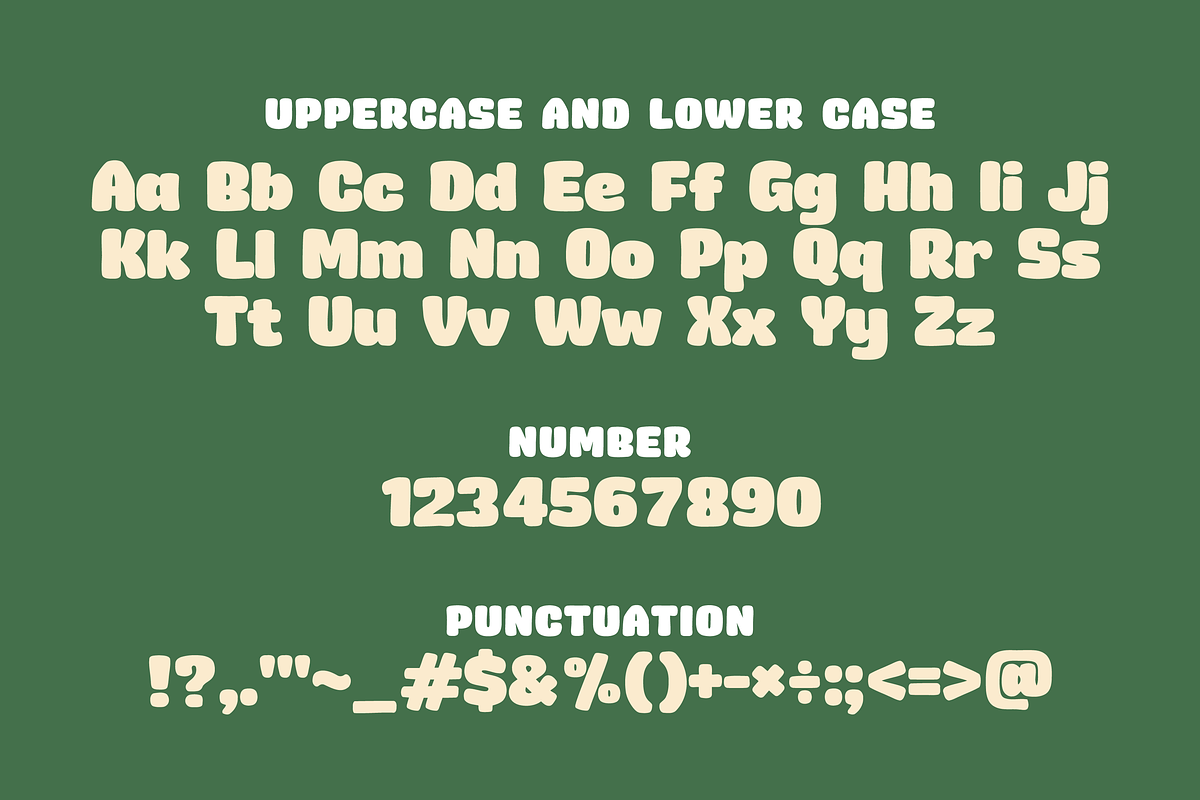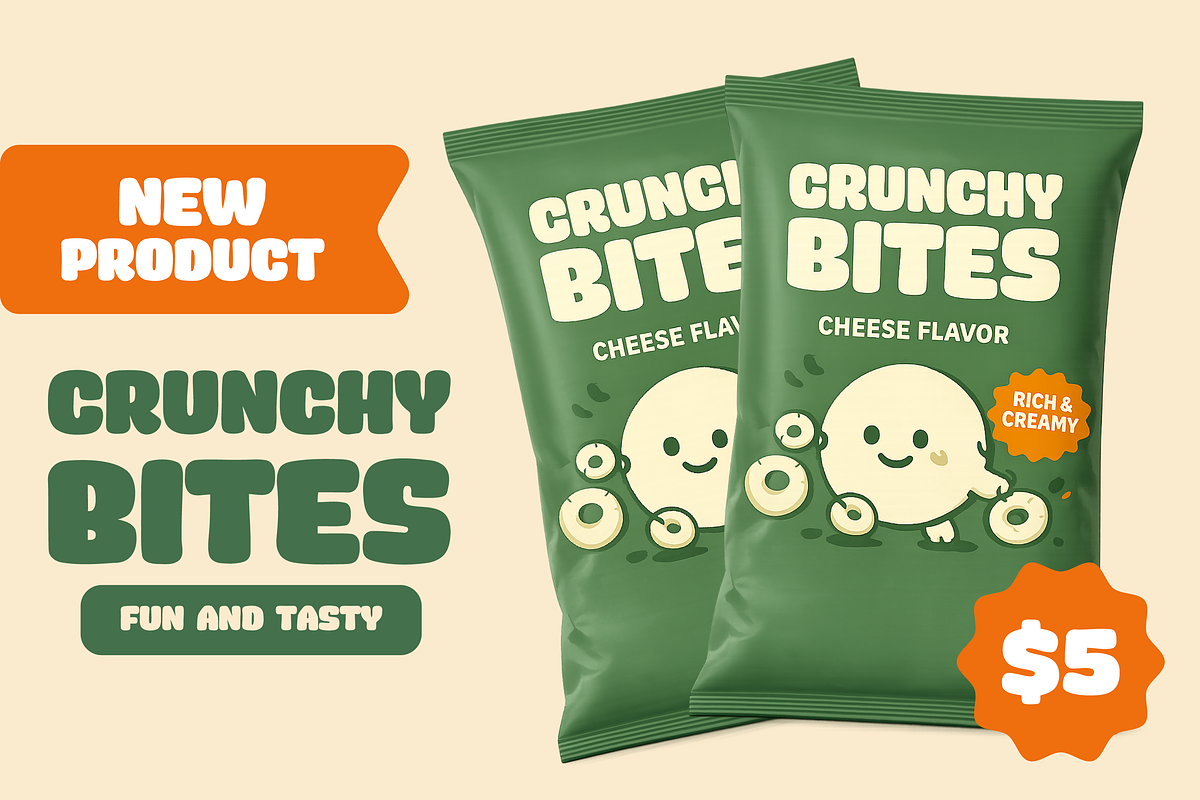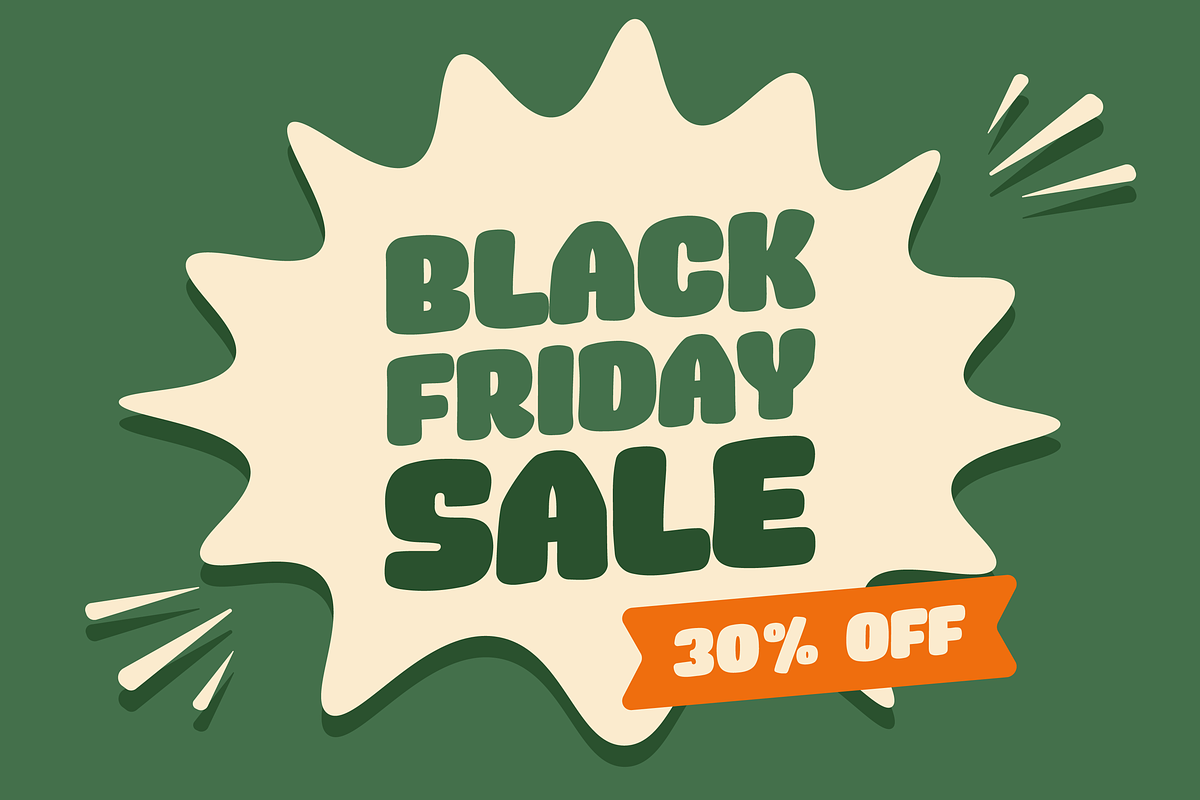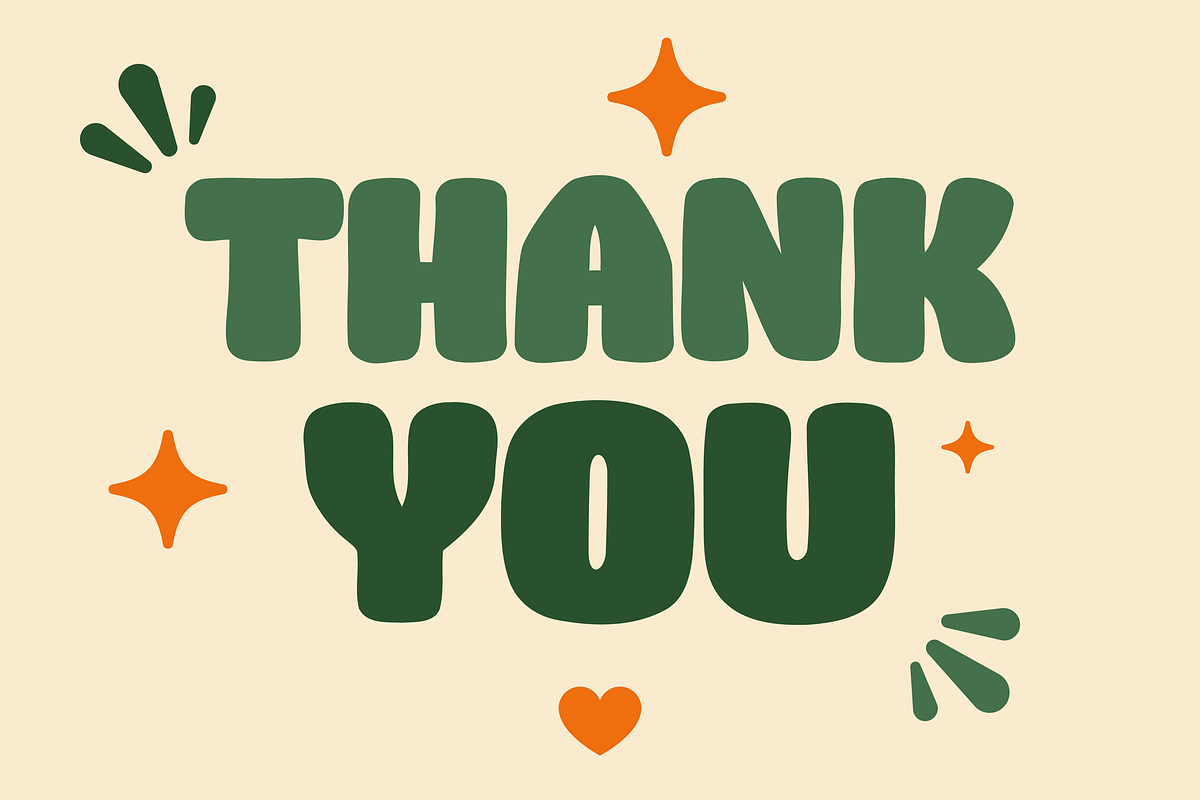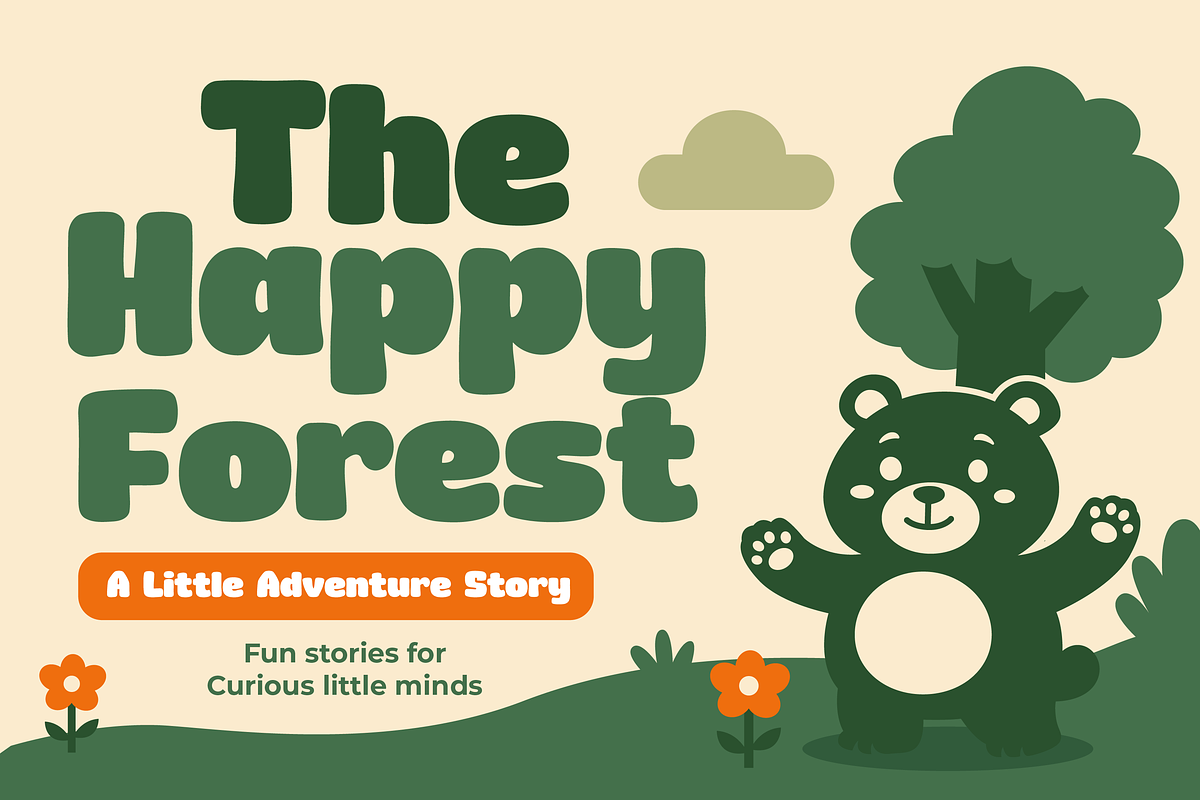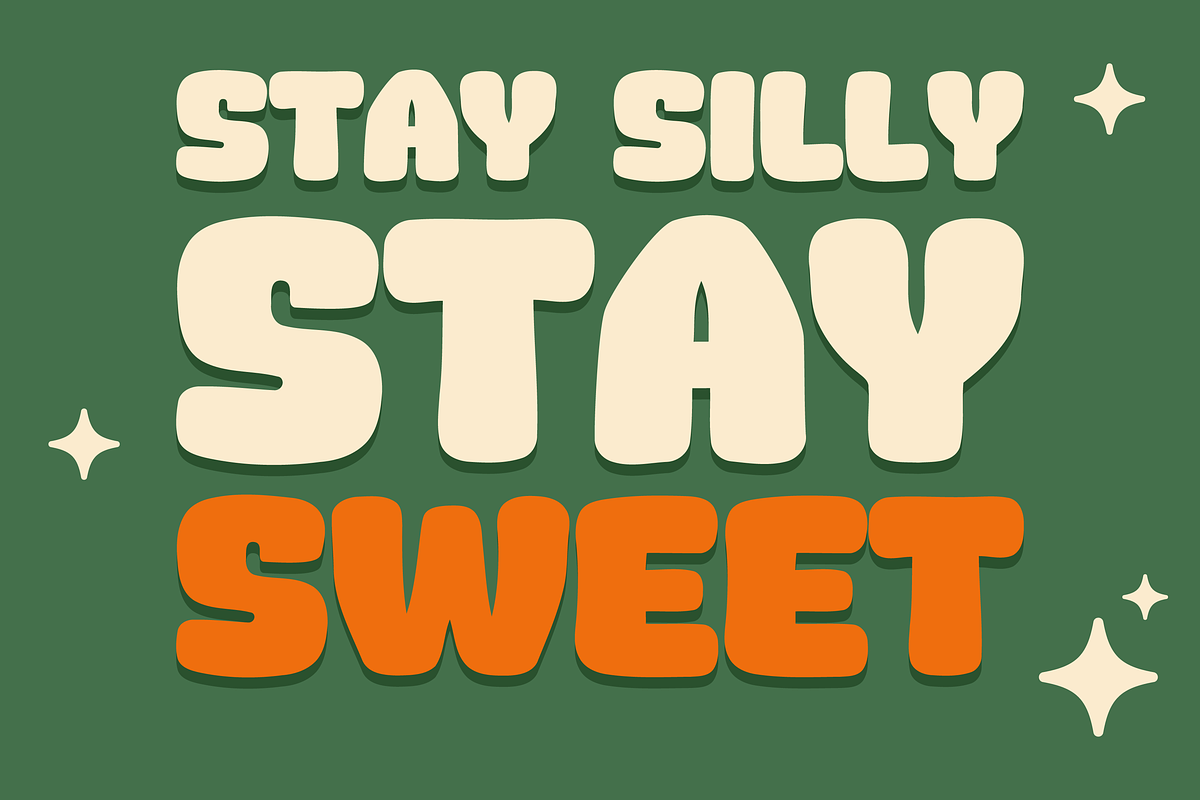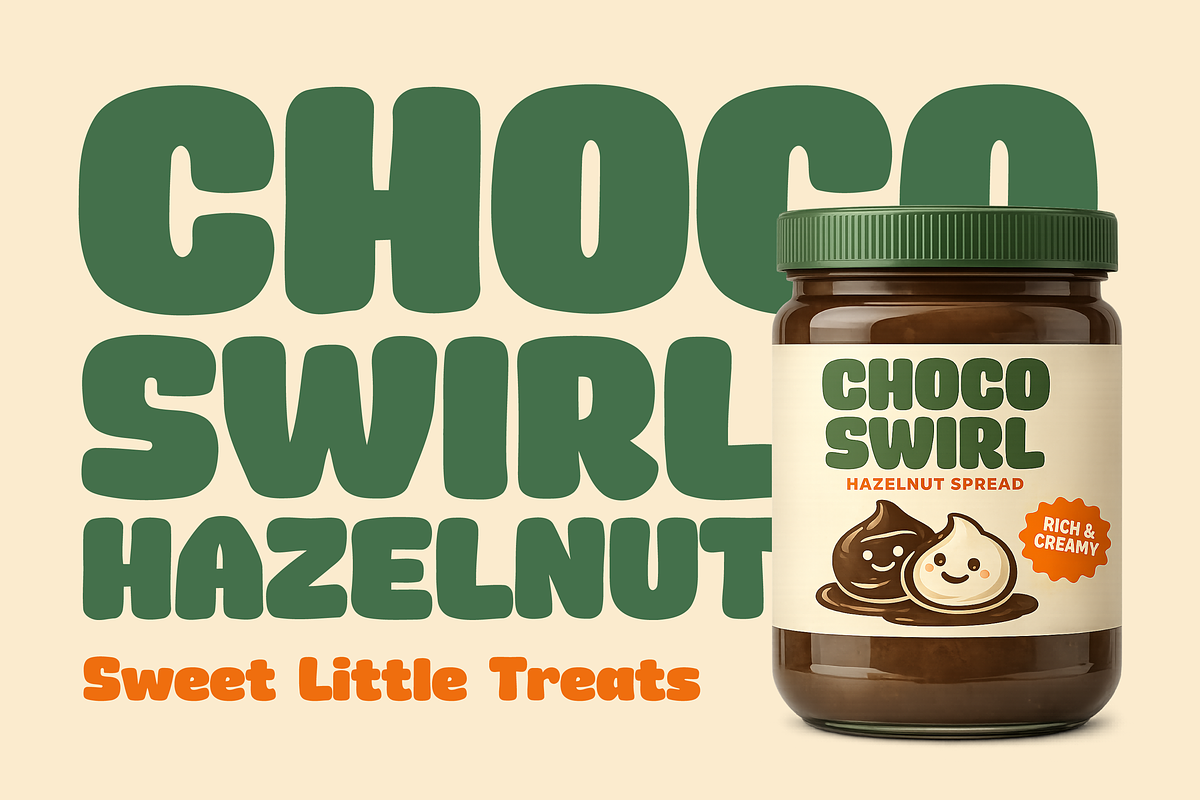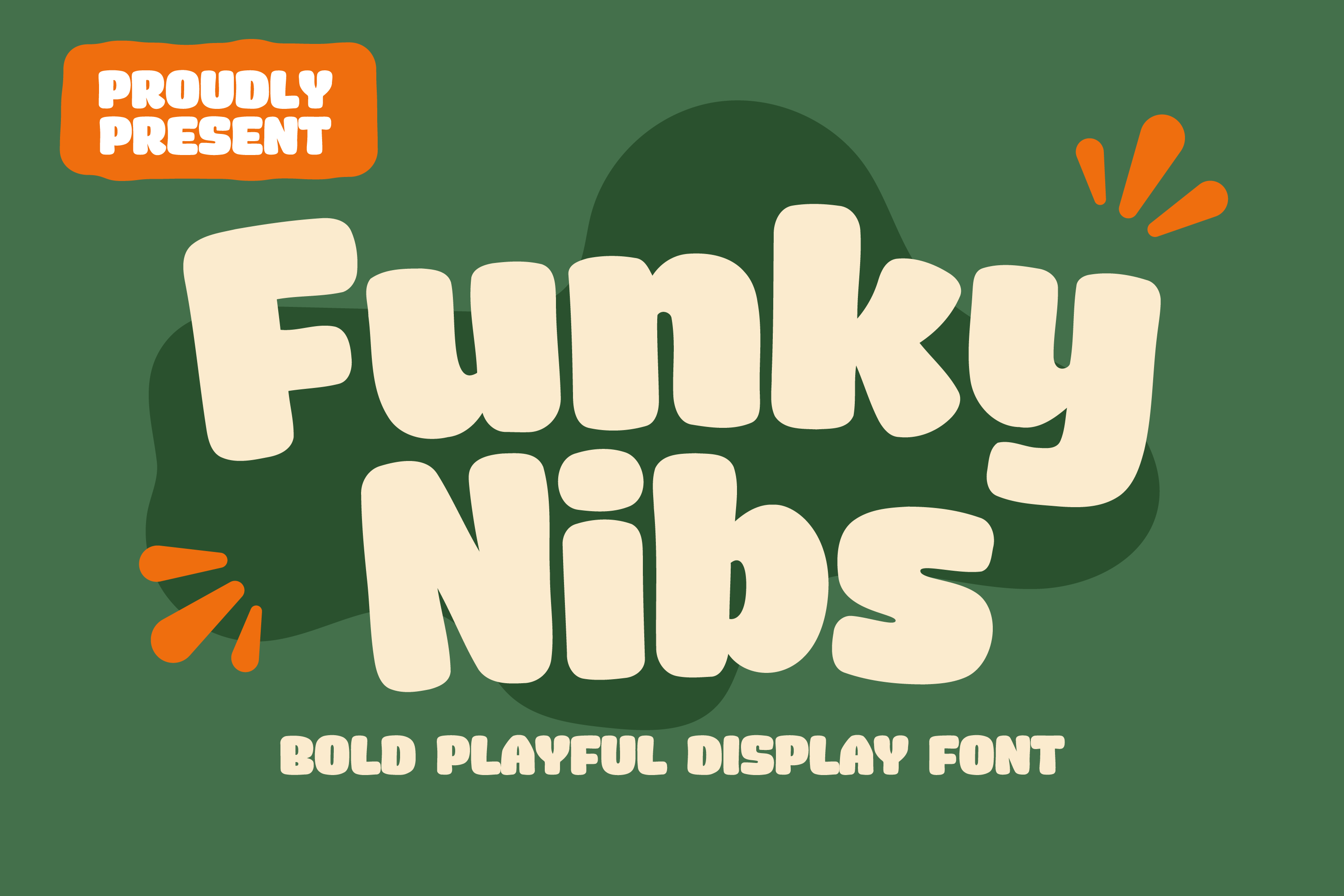
Funky Nibs Bold Playful Display Font
Funky Nibs - Bold Playful Display Font
Funky Nibs is a bold playful display font with chunky shapes and a cheerful personality. Its rounded curves and bubbly structure create a fun, energetic, and eye-catching look that’s perfect for posters, kids branding, snack packaging, playful logos, social media graphics, and creative projects that need a happy and quirky vibe.
Designed with a thick and soft appearance, Funky Nibs brings a modern retro feel that instantly stands out while staying friendly and easy to read.